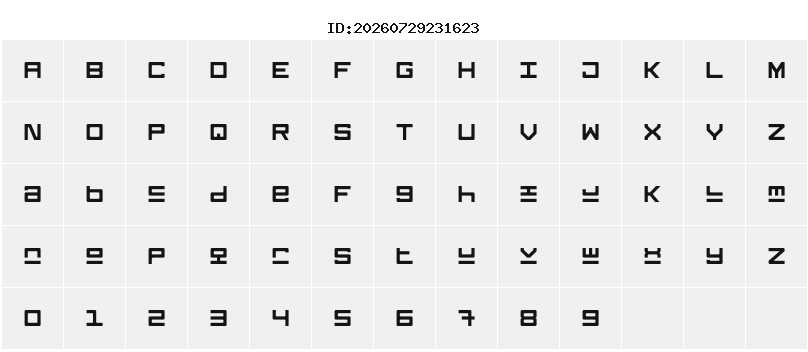
• Font Name: Keystone
• Full Font Name: Keystone
About Keystone.ttf
Keystone.ttf is a modern, elegant sans-serif font designed for ultimate readability and visual harmony. Perfect for branding, headlines, web design, and print materials.